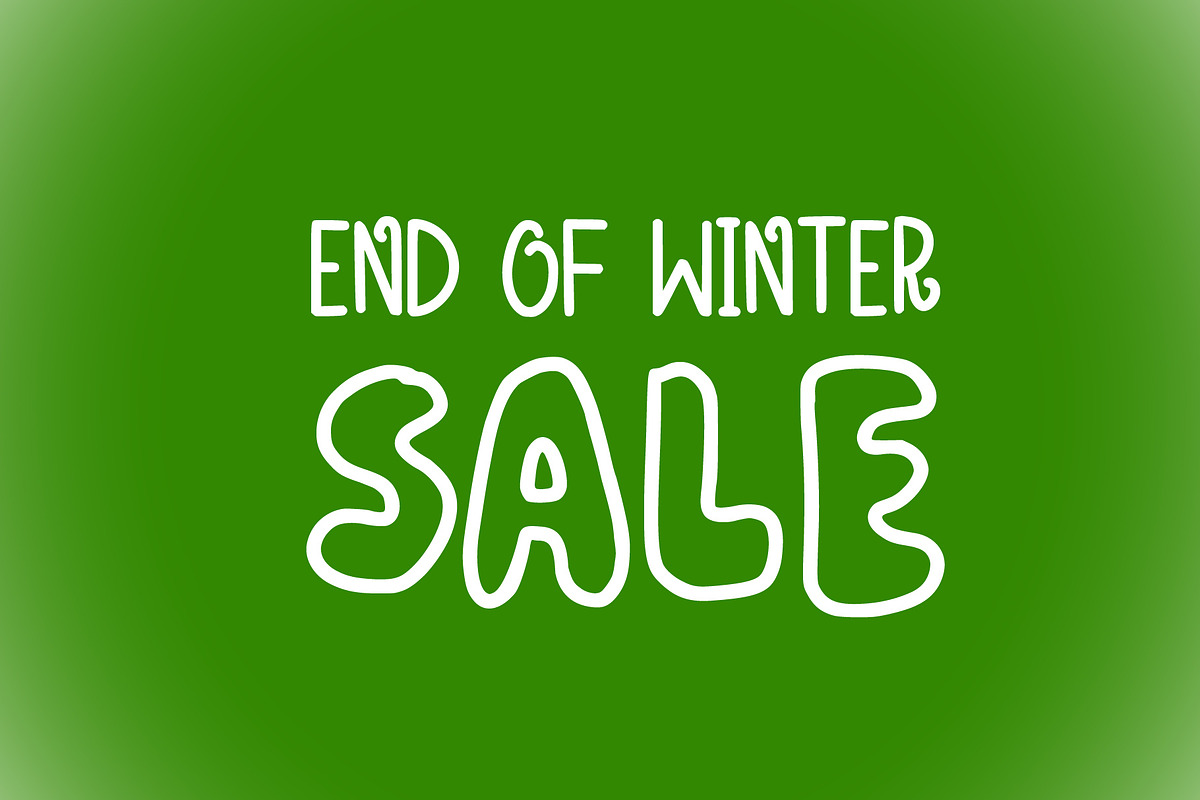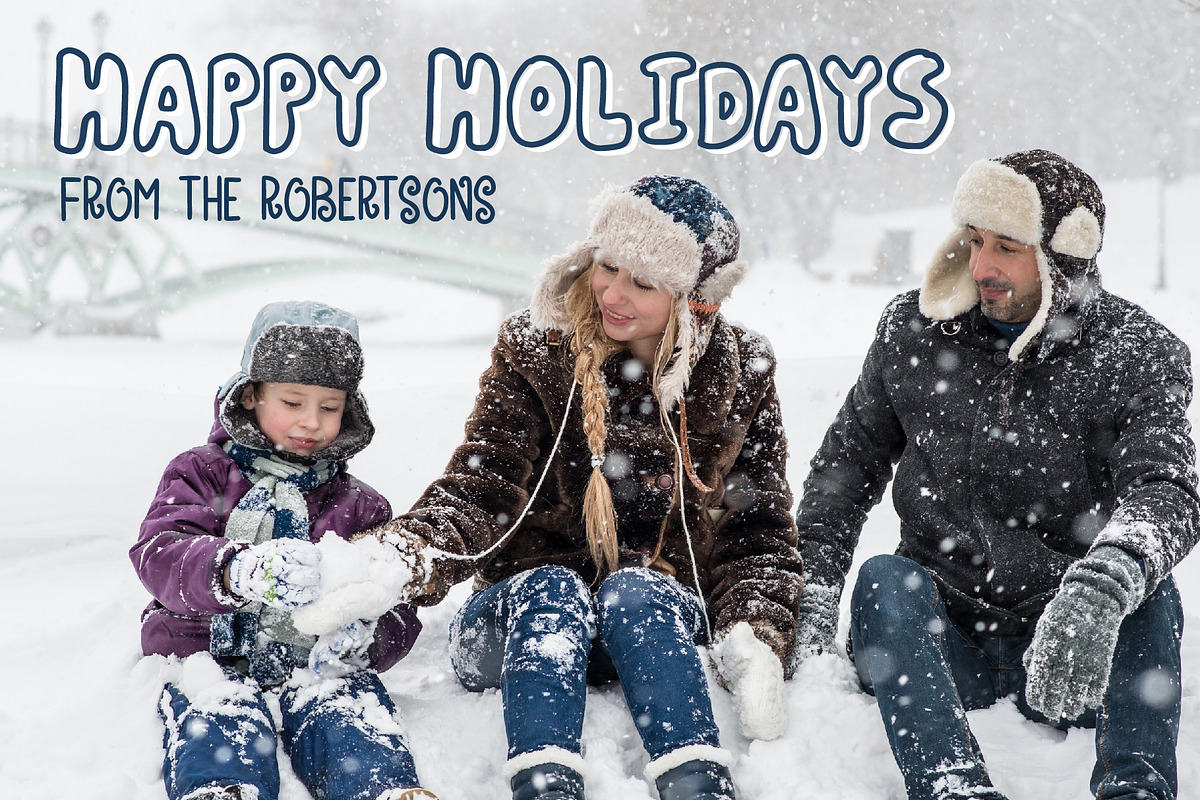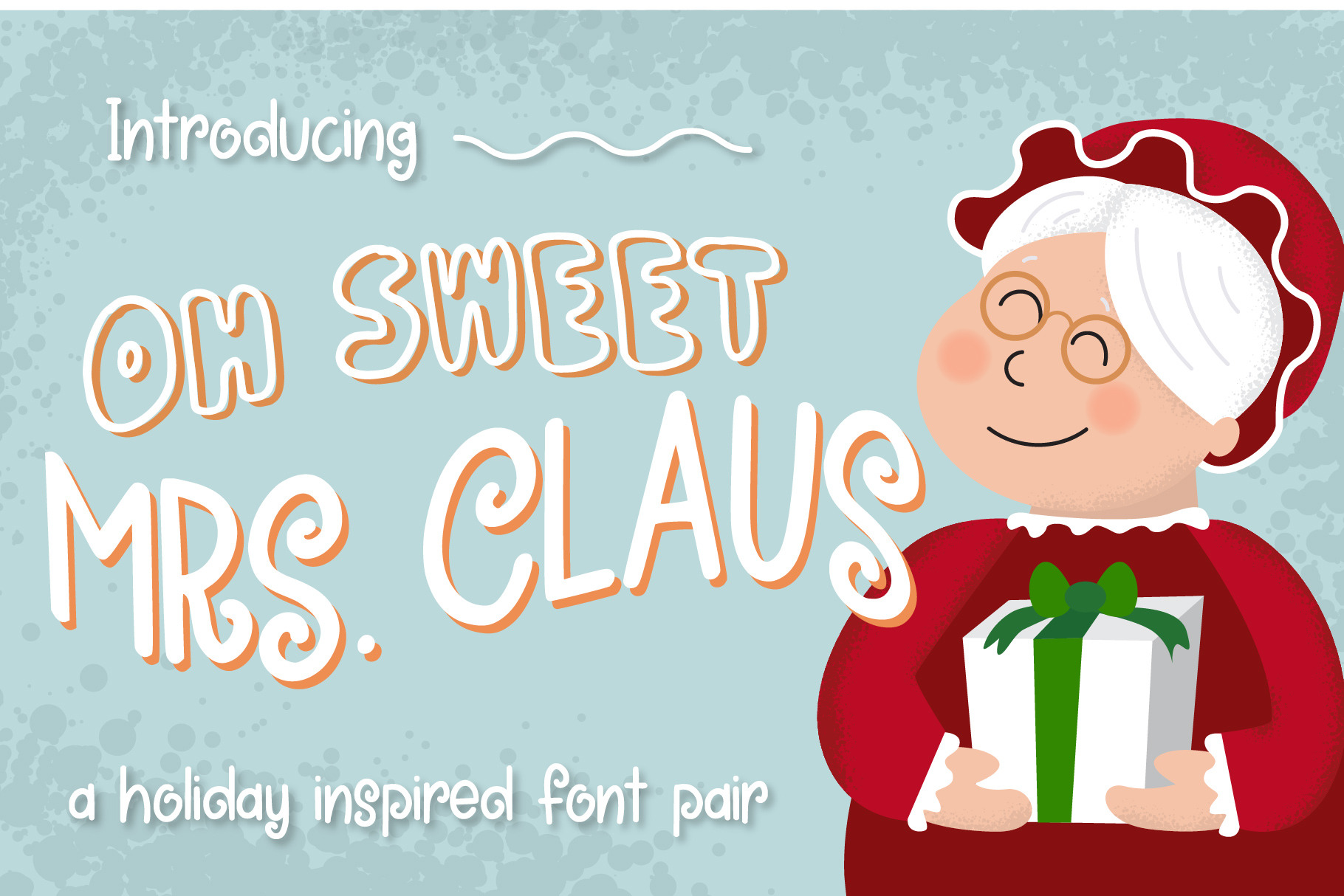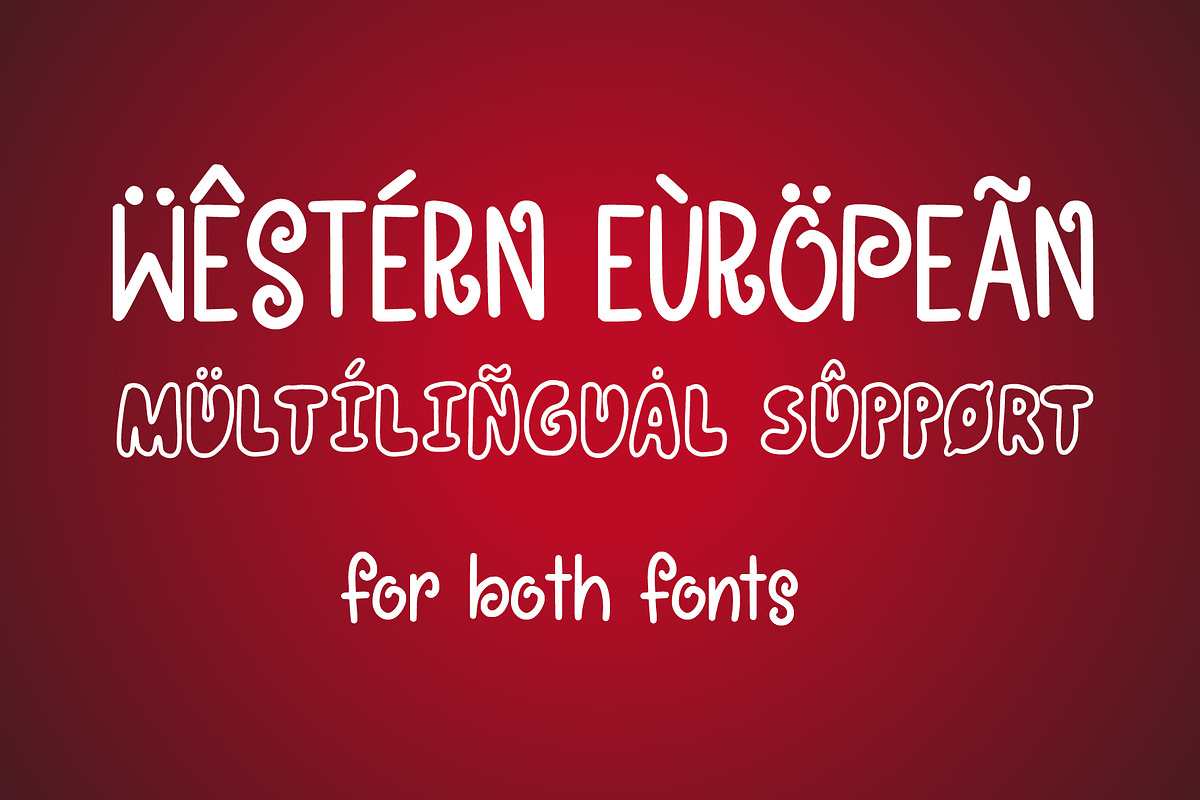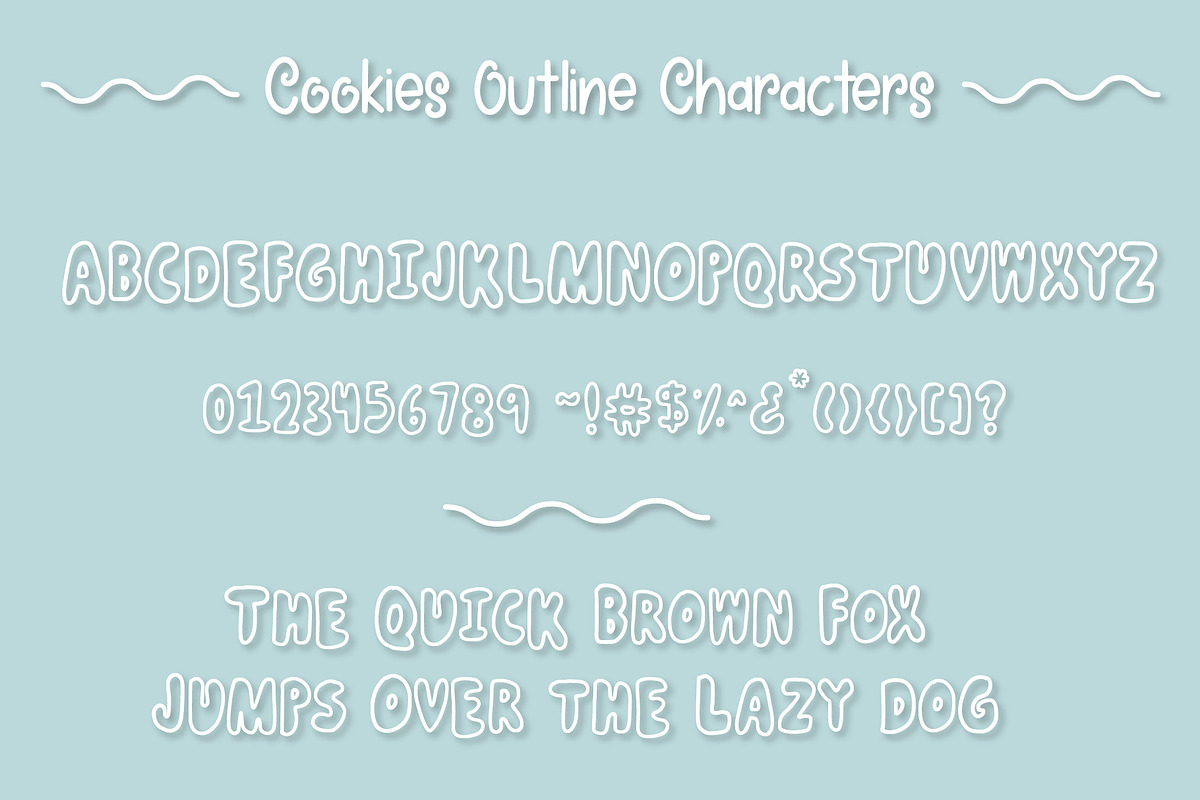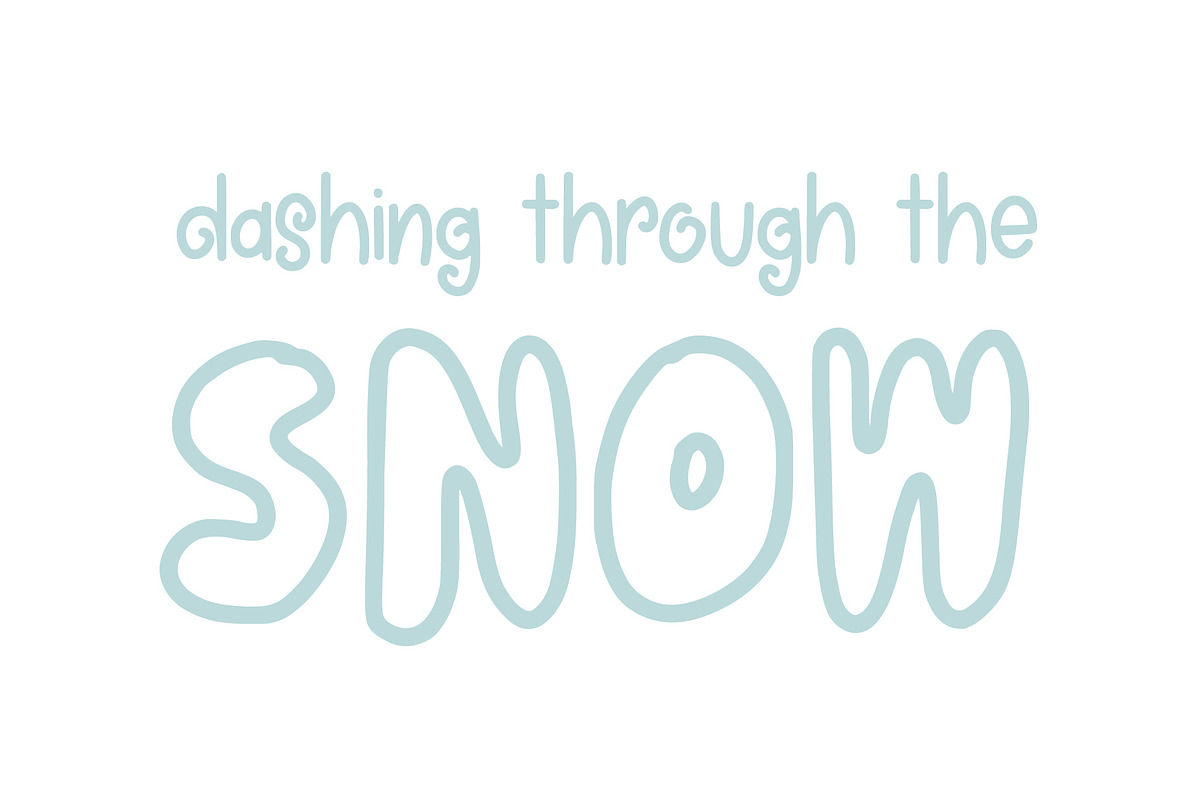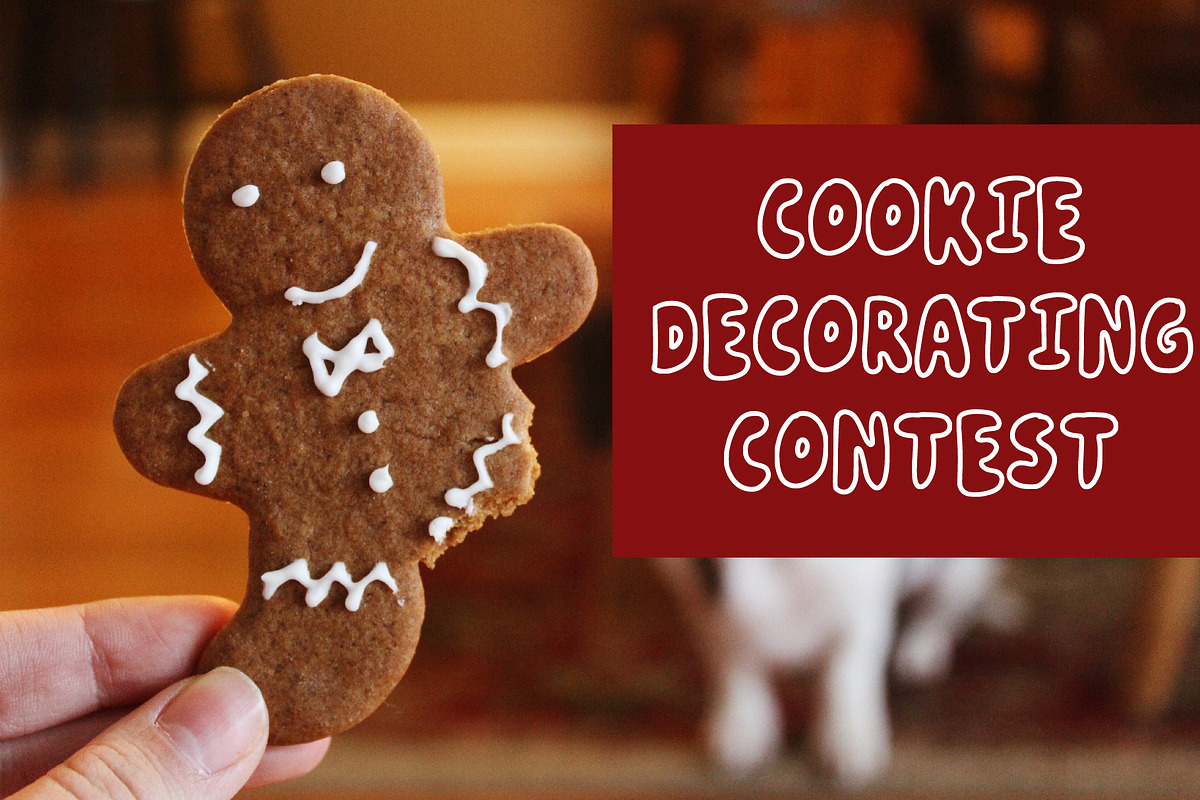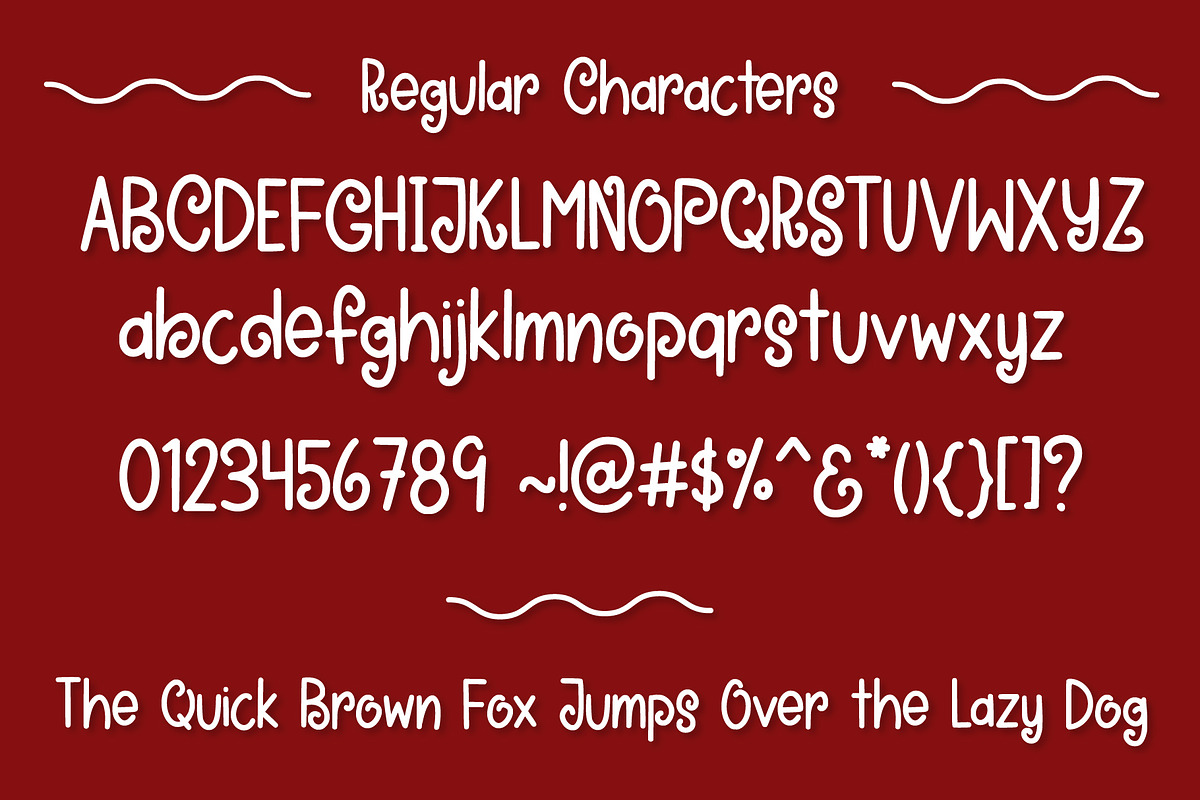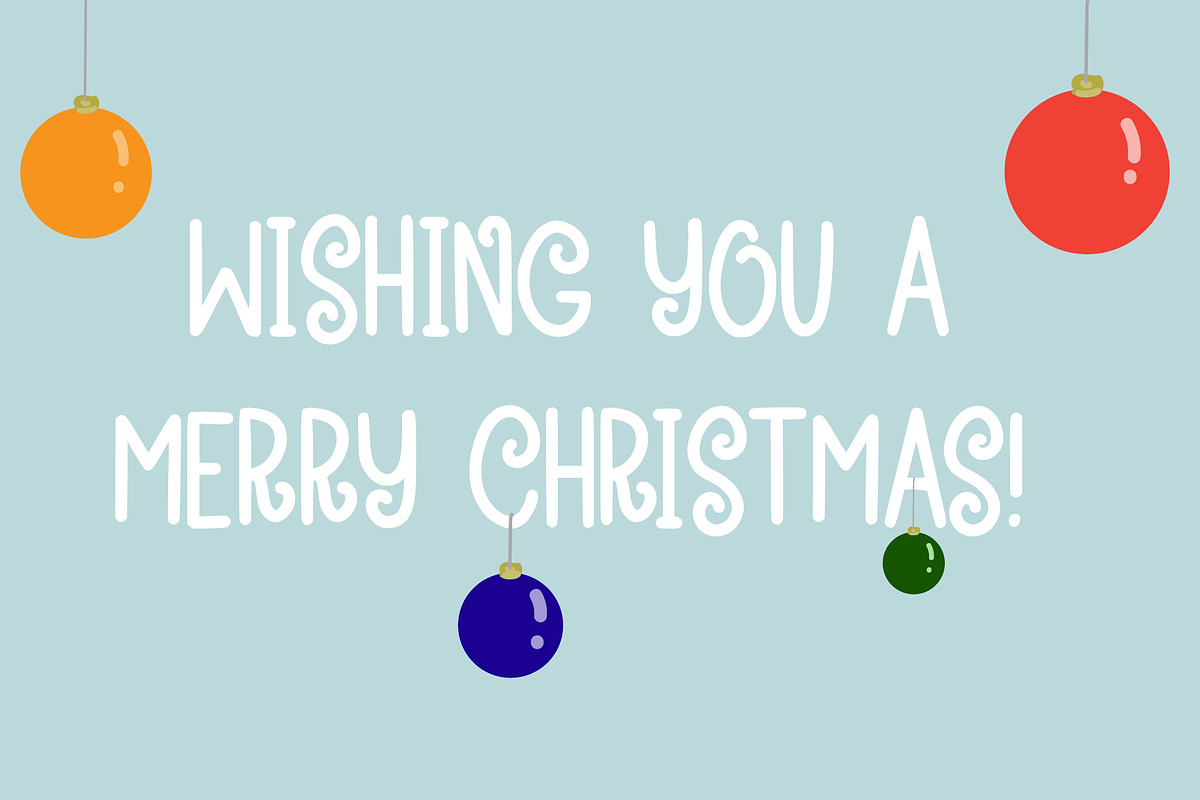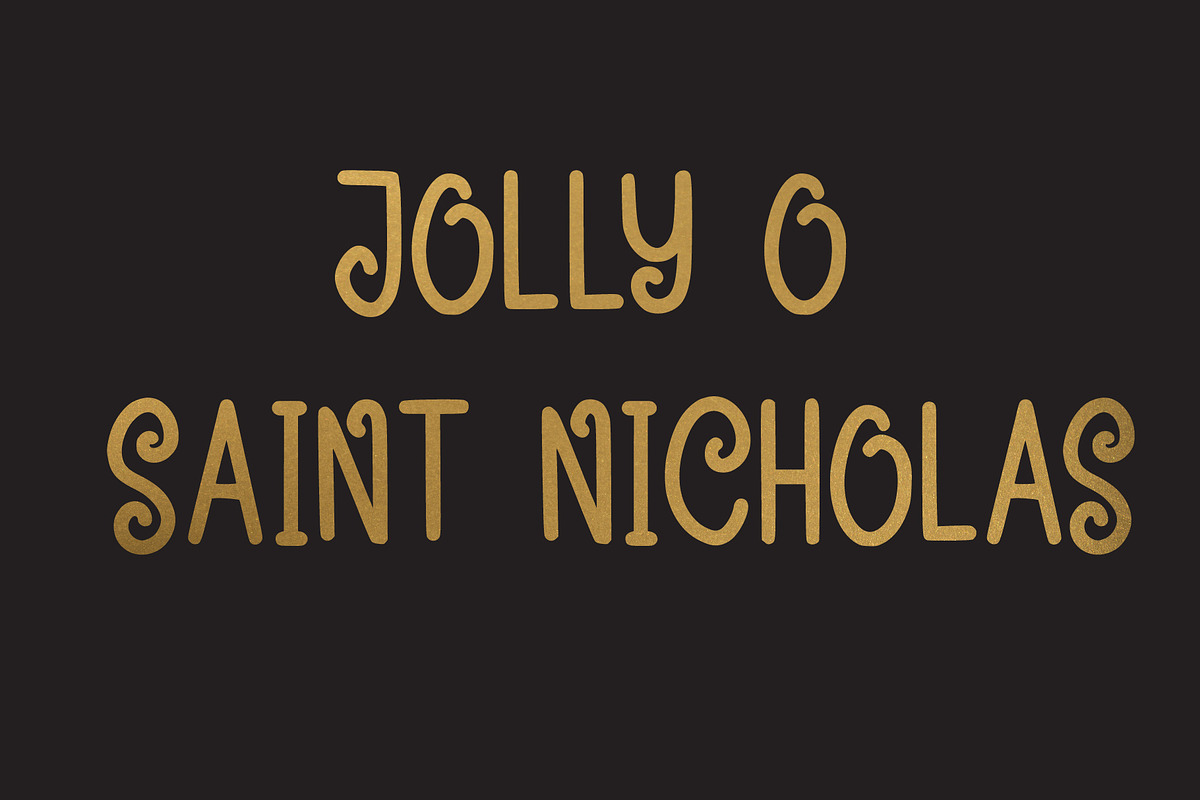
Oh Sweet Mrs. Claus Font Duo
Introducing, Oh Sweet Mrs. Claus Font Duo. A fun san serif font that was inspired by the Holiday and Christmas soul of Mrs. Santa Claus. This PUA font is perfect for professional designer, social media, or crafters.